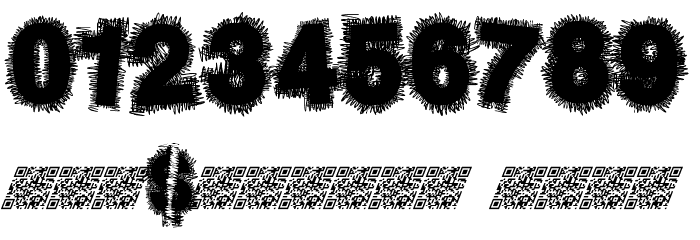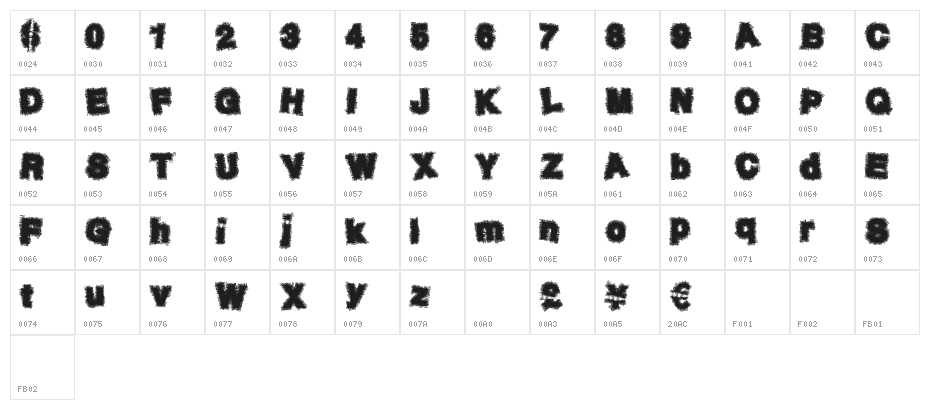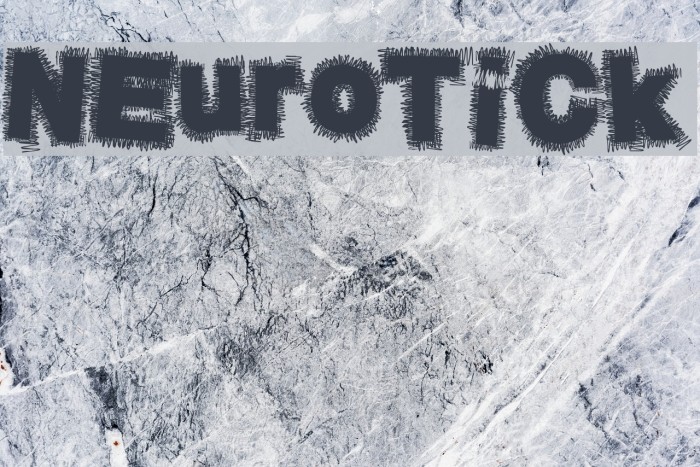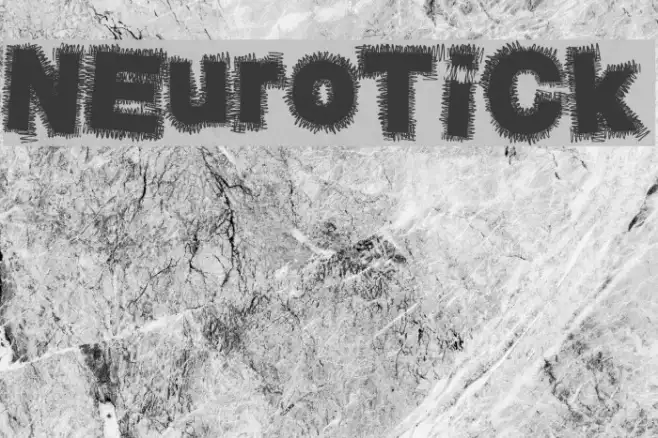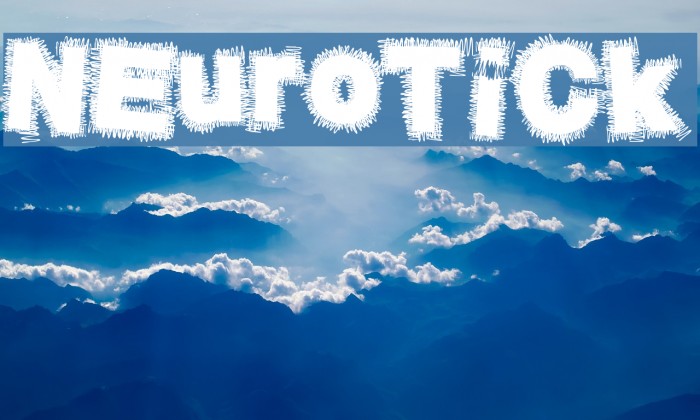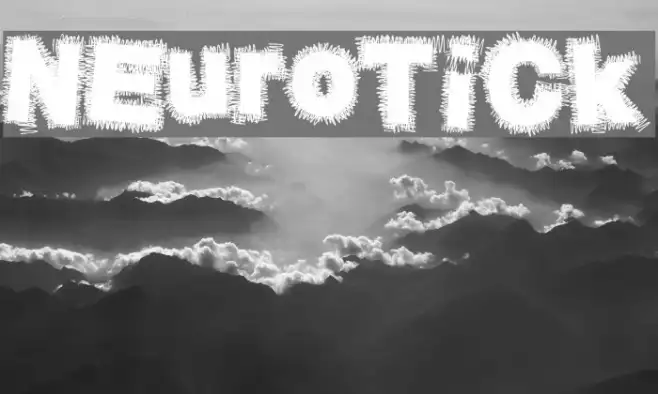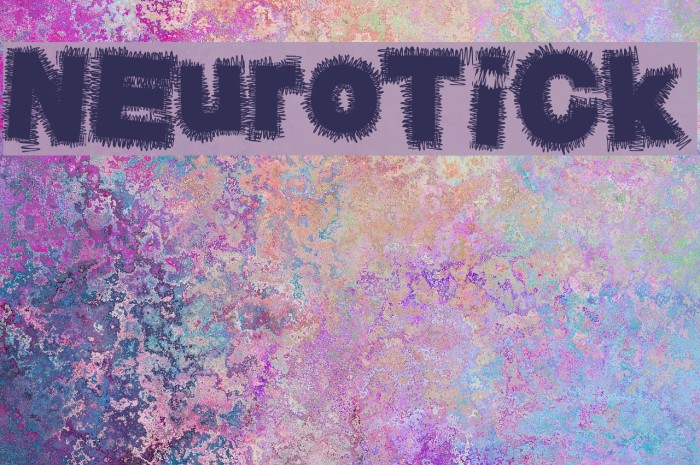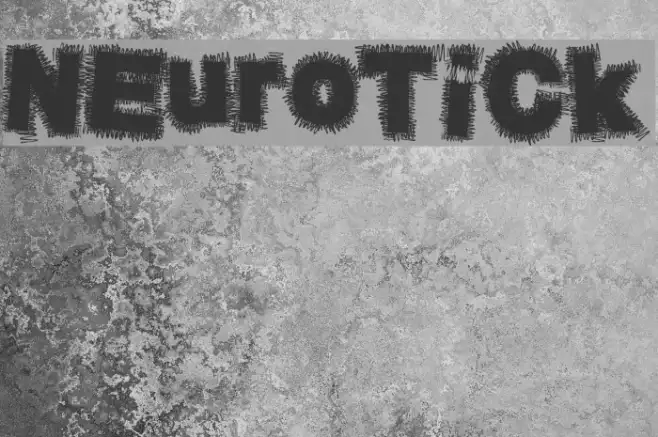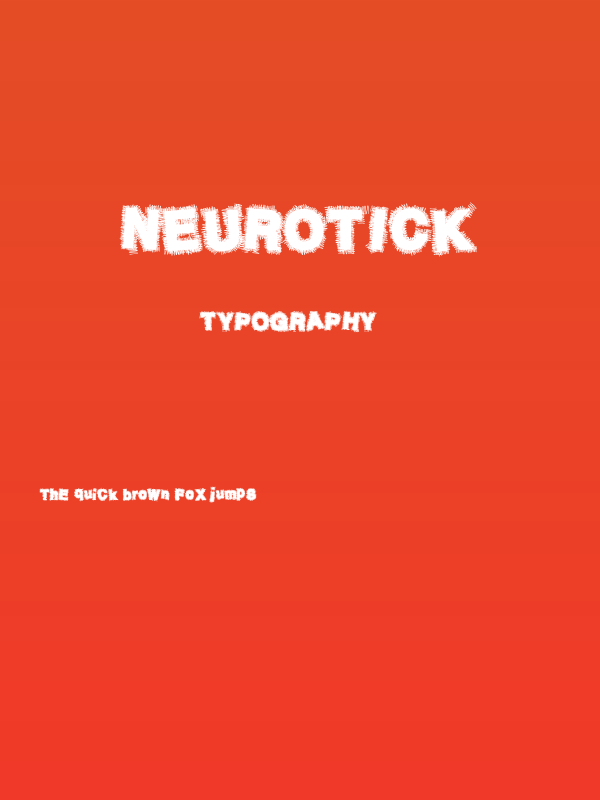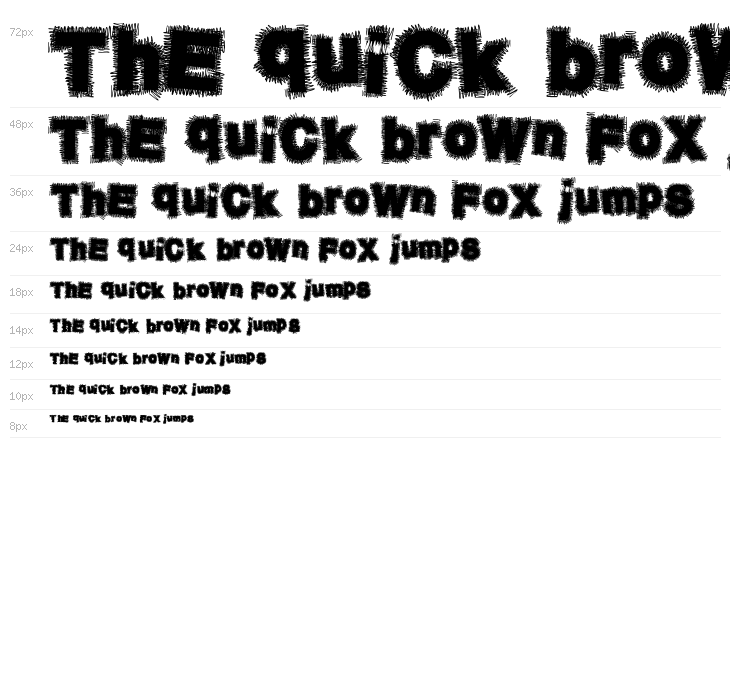
NeuroTick Font
NeuroTick Description
This font features a unique, textured design that gives each character a dynamic, almost vibrating appearance. The bold, jagged edges create a sense of movement and energy, making it stand out dramatically. The uppercase and lowercase letters maintain a consistent style, with the uppercase being slightly larger and more pronounced. Numbers and special characters follow the same design, ensuring uniformity across all glyphs. The overall effect is striking and memorable, suitable for projects that require a bold statement.
| Proposed Projects | Ideal for posters, album covers, and any design needing a bold, energetic look. |